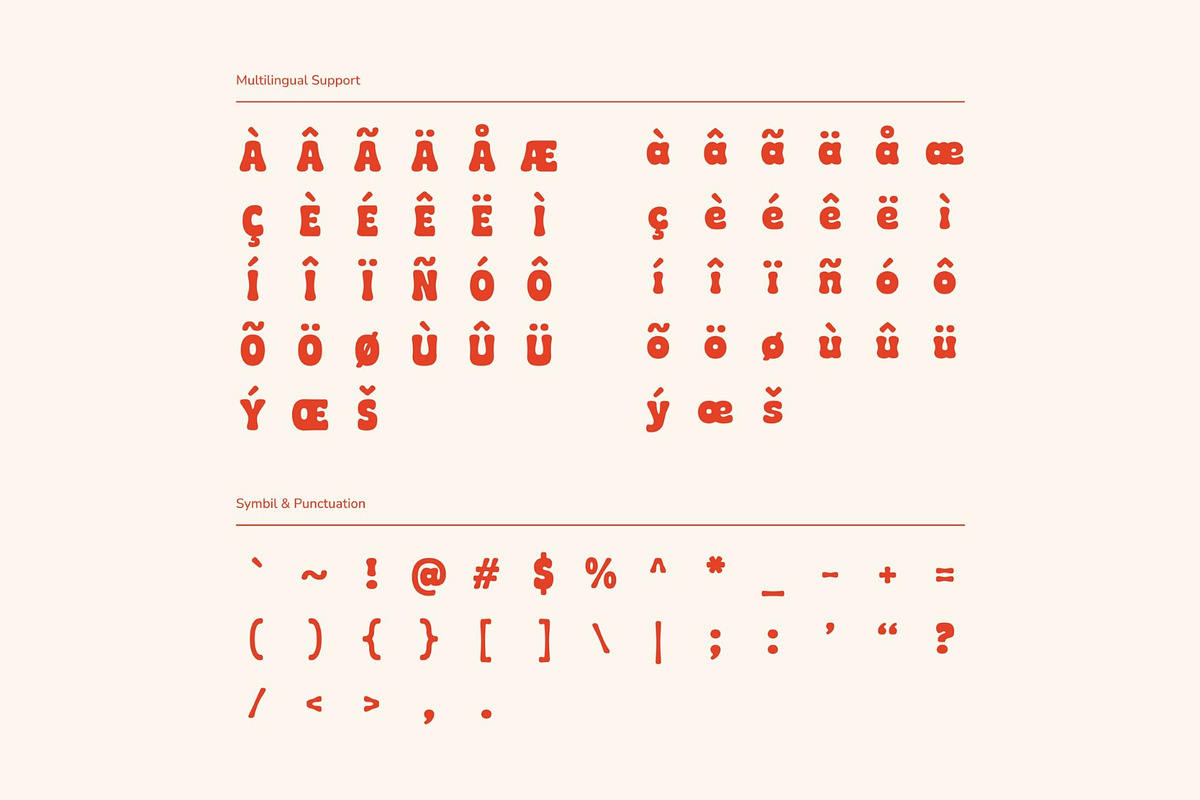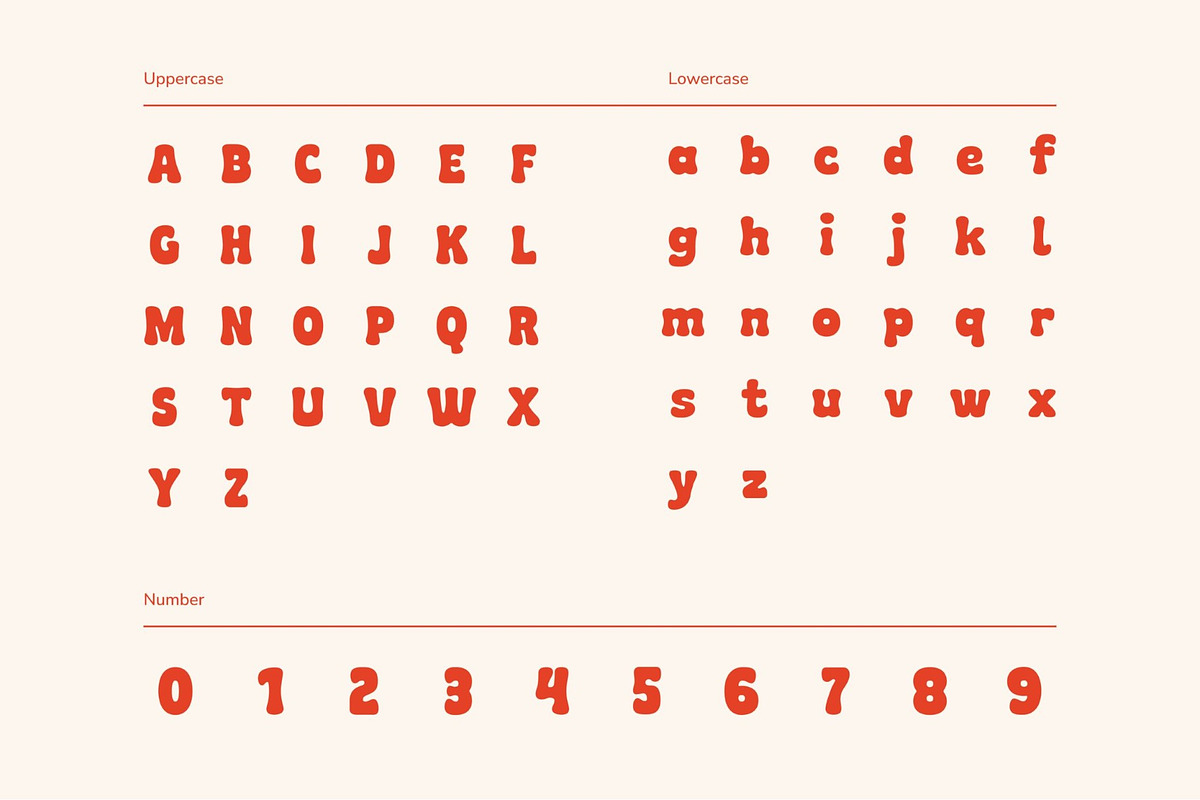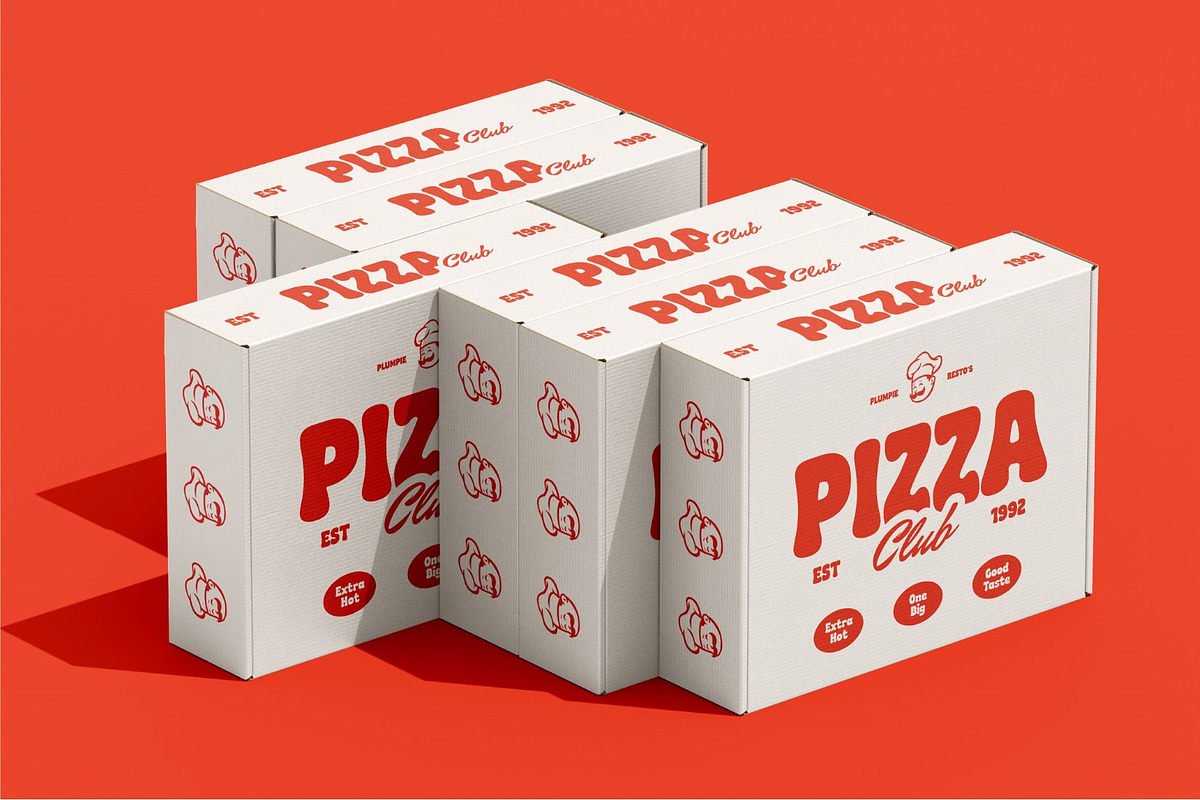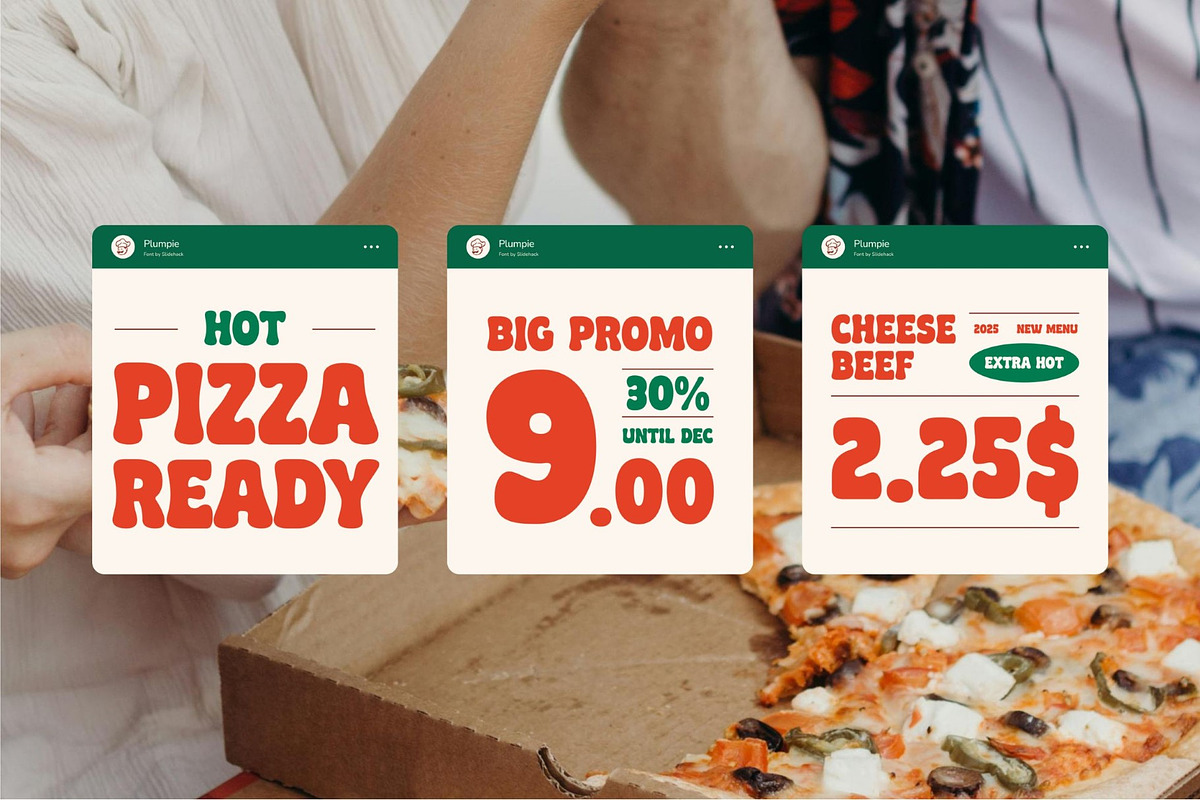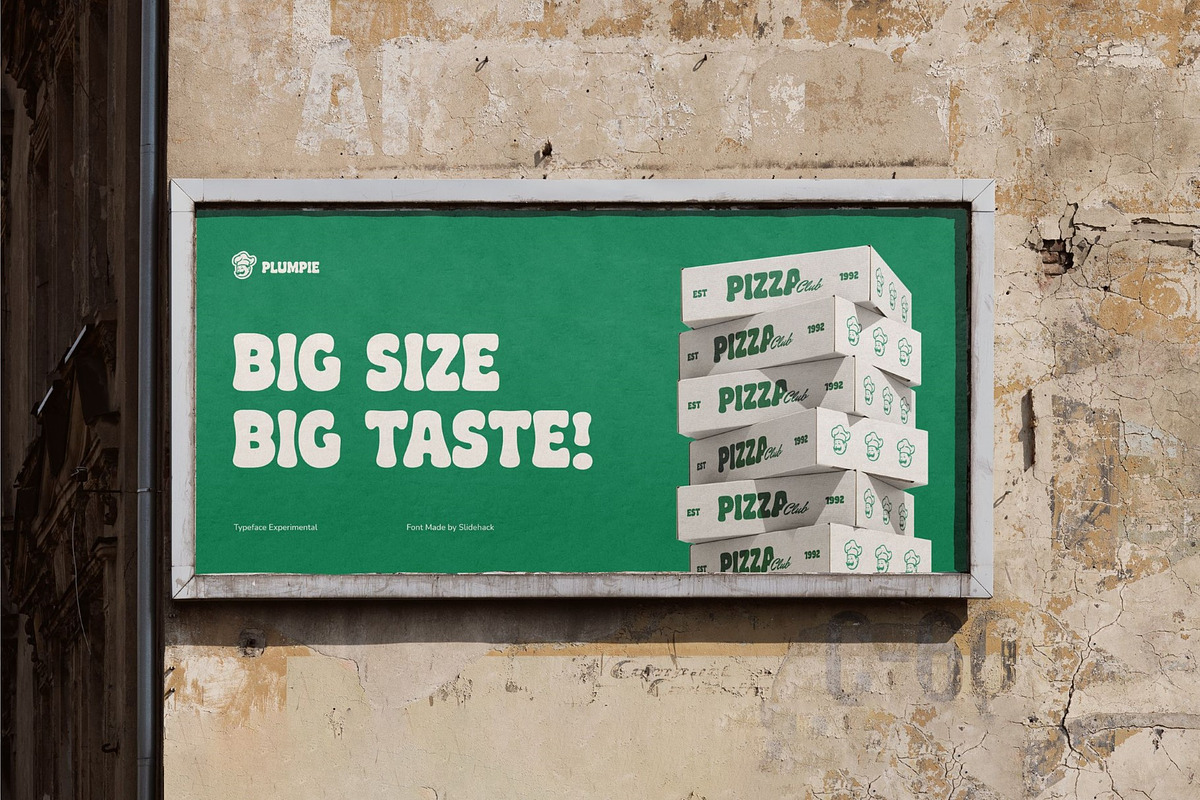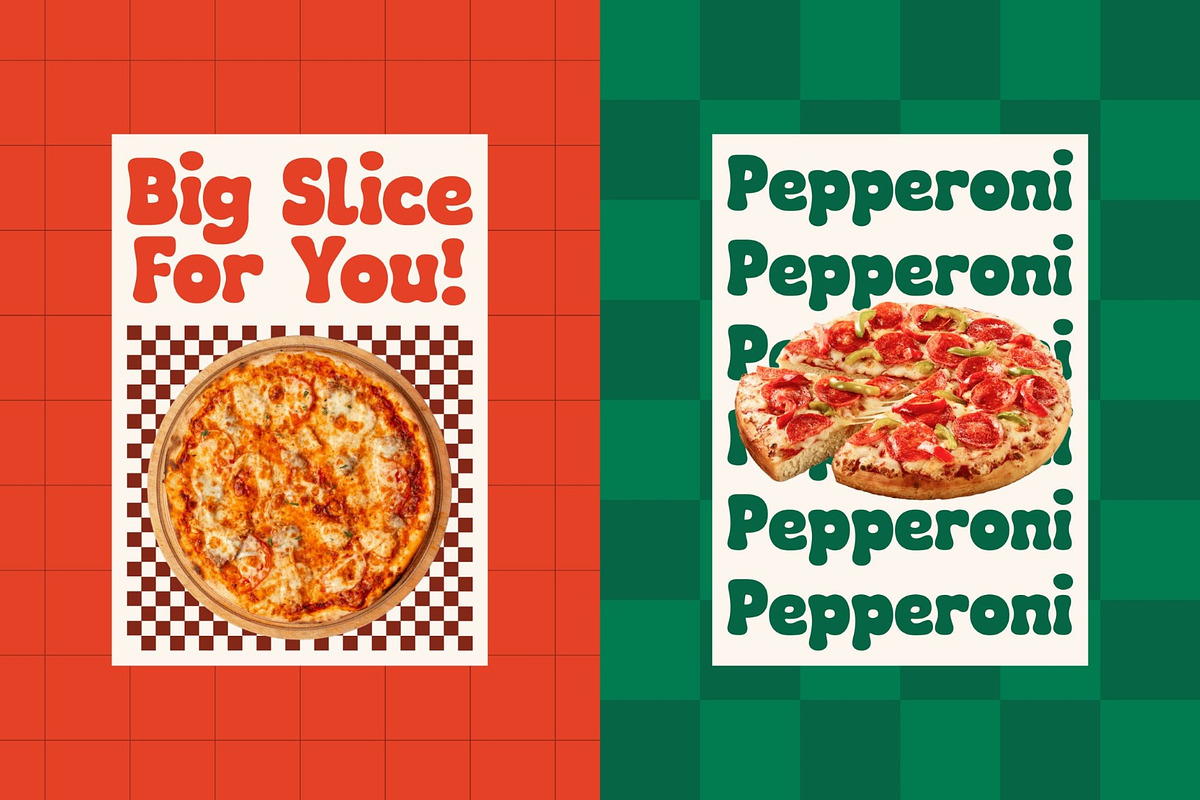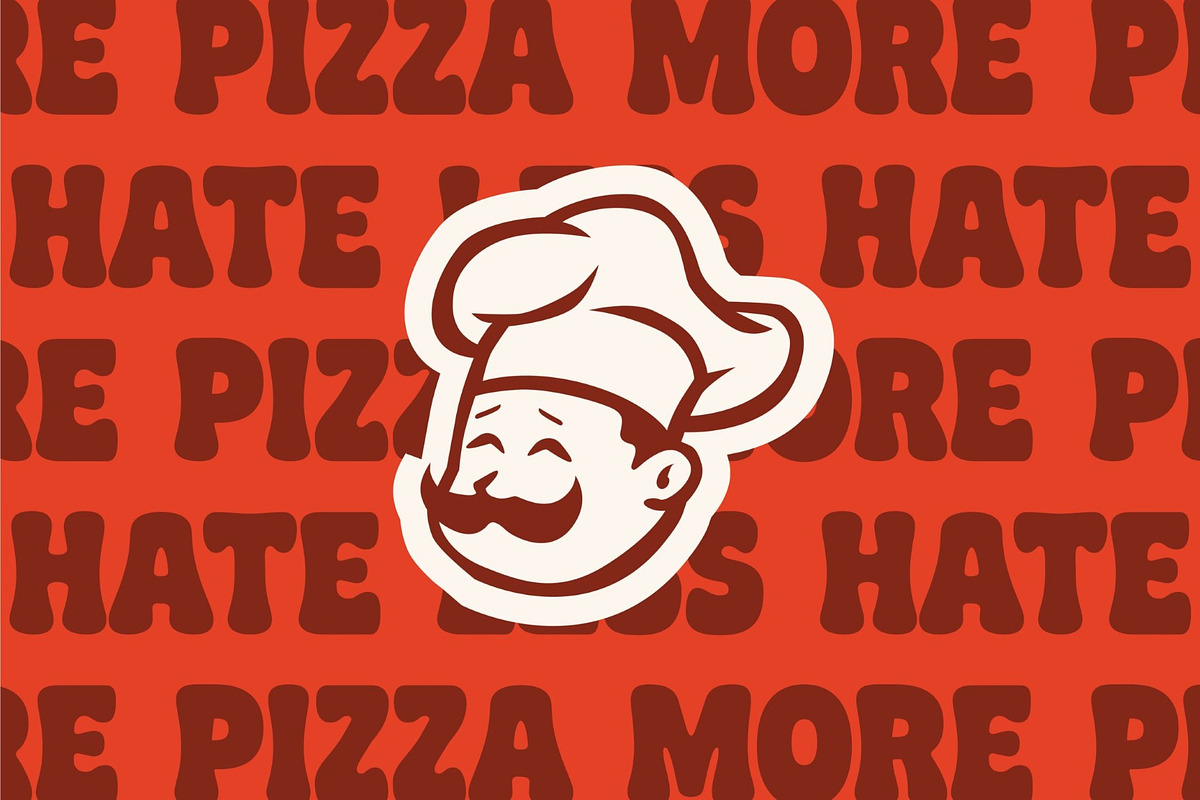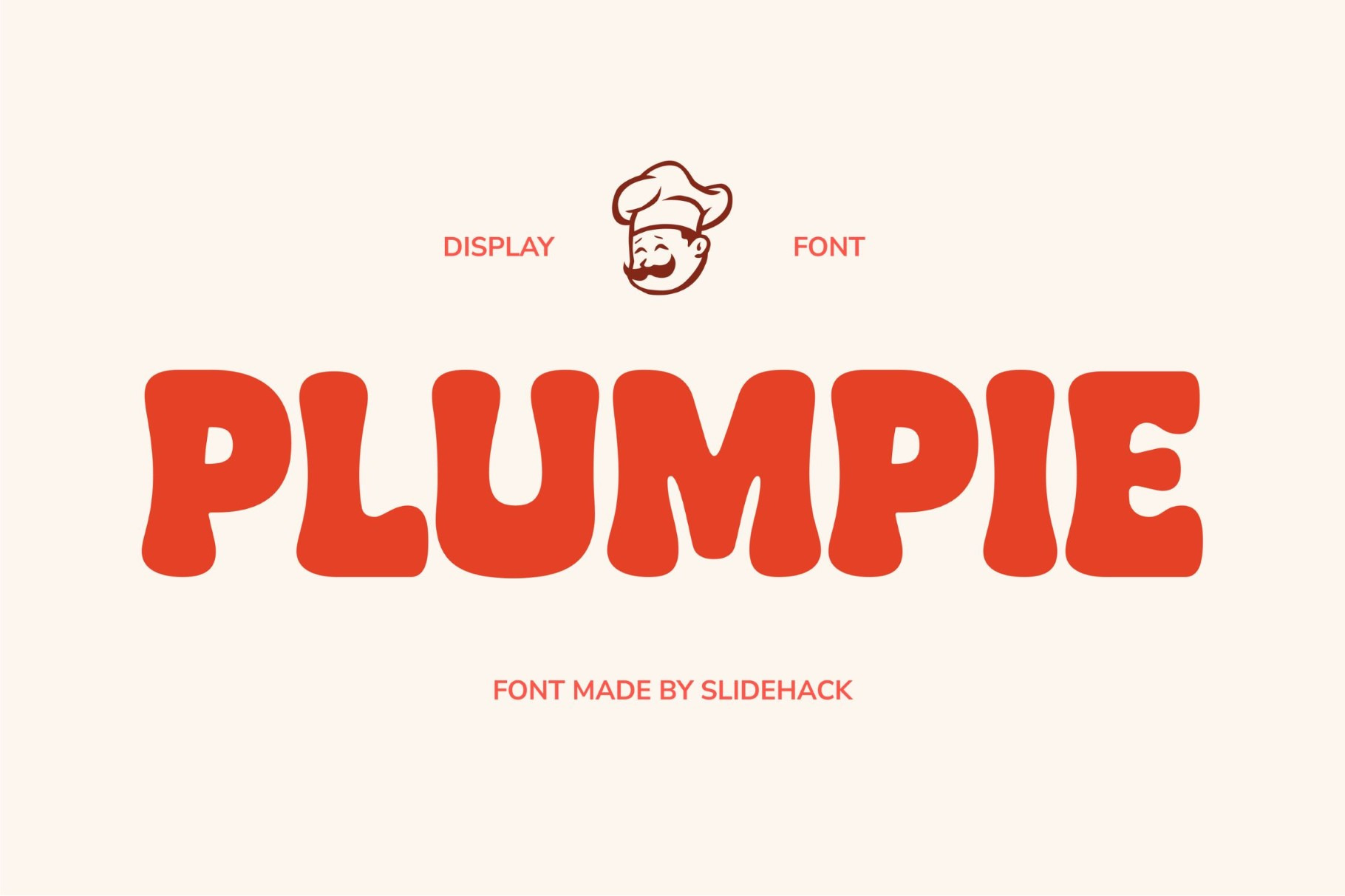
Plumpie - Bold Display Font
Plumpie – Display Font brings bold, bubbly, and playful style perfect for branding, food packaging, posters, kids’ designs, and creative projects. Its chunky curves and fun character make your text stand out. Great choice for designers seeking a modern, eye-catching, and versatile font that instantly grabs attention.